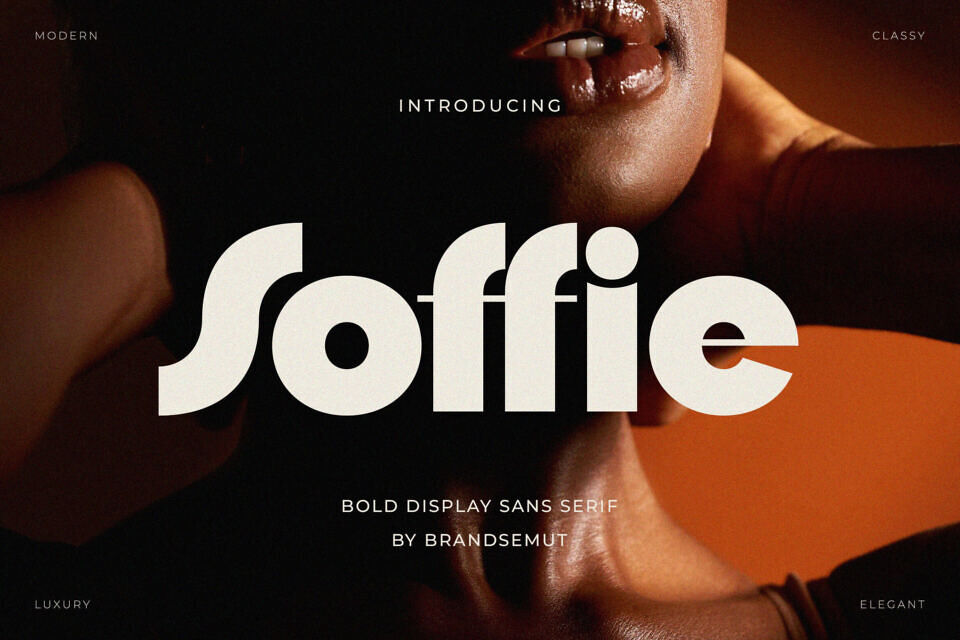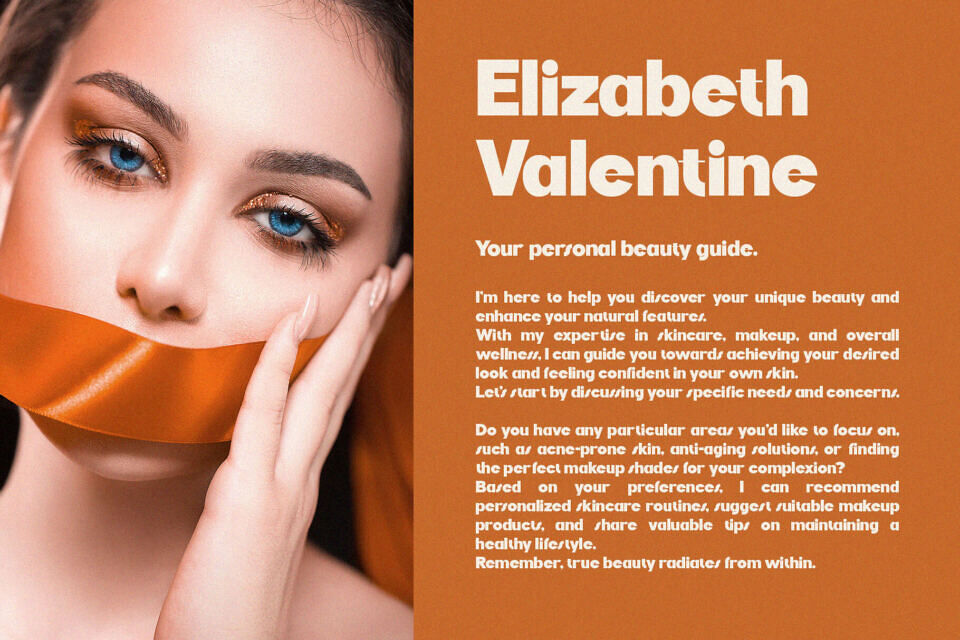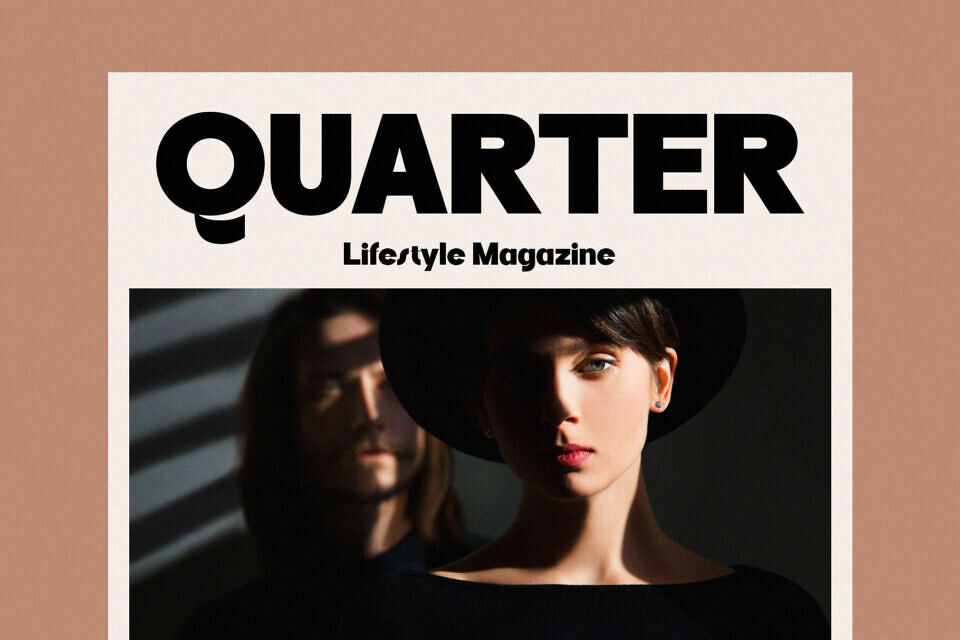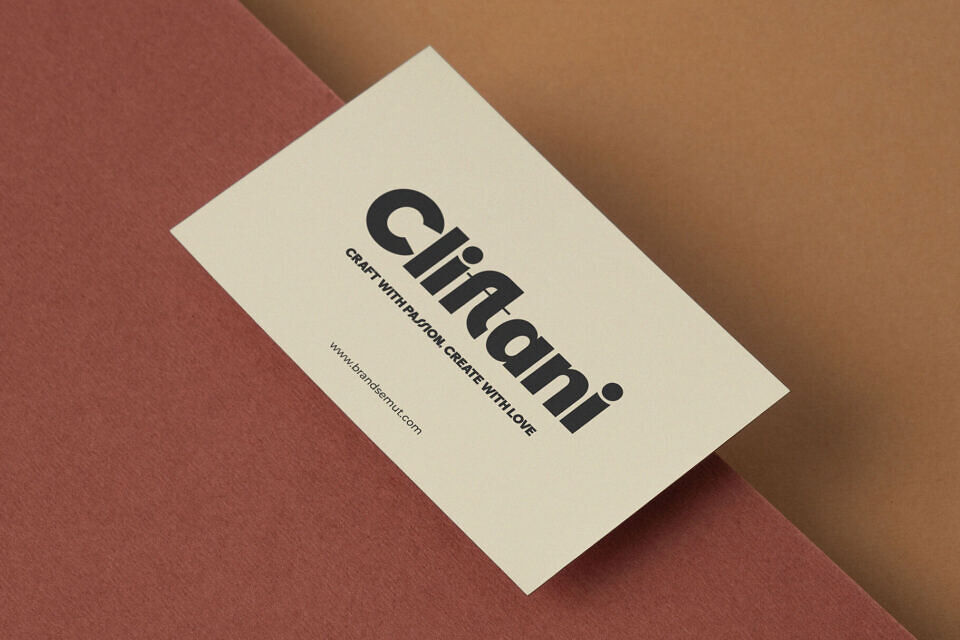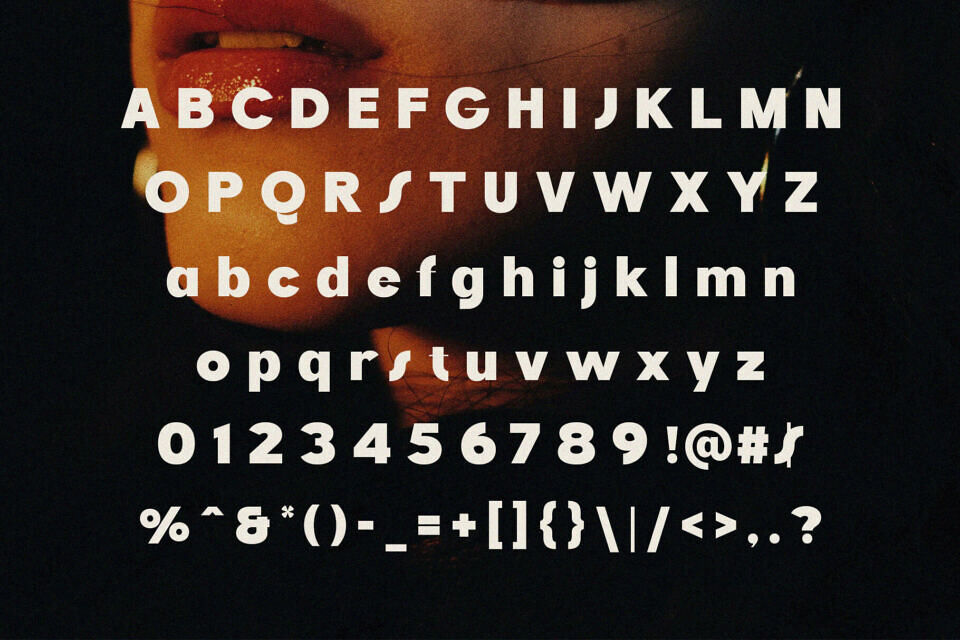
Soffie Font
Meet Soffie, a sleek and stylish sans serif font. Its modern elegance makes it perfect for headings, logos, and branding. Soffie’s clean lines and smooth curves add a touch of sophistication to magazines, packaging, and invitations, elevating any project with its refined style.